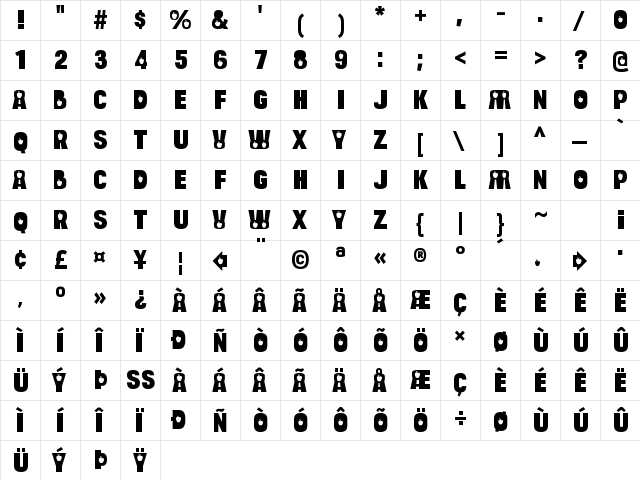
Bulltoad Apple Regular
Bulltoad Apple takes a measured approach to typography — its balanced proportions and neutral character make it a reliable workhorse for both digital and print work.